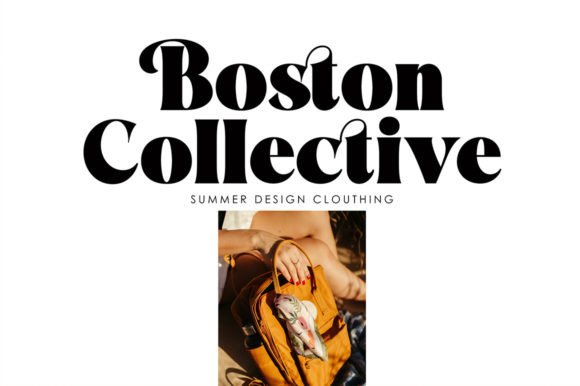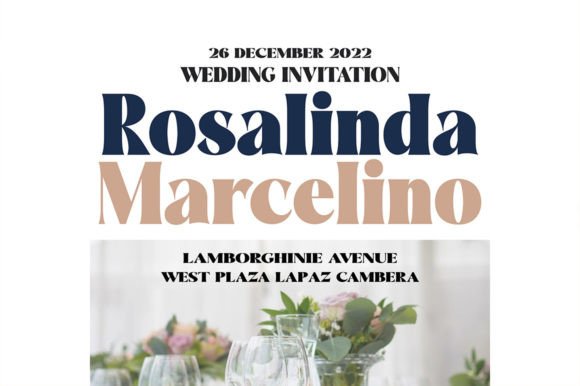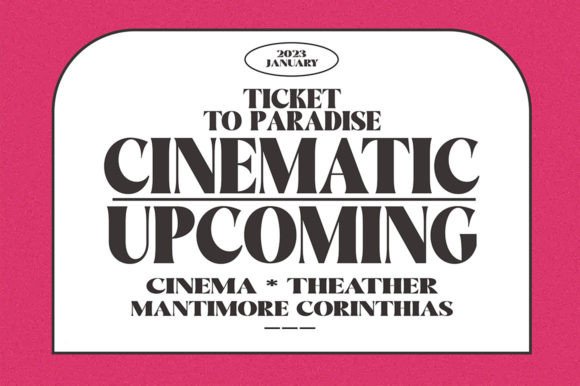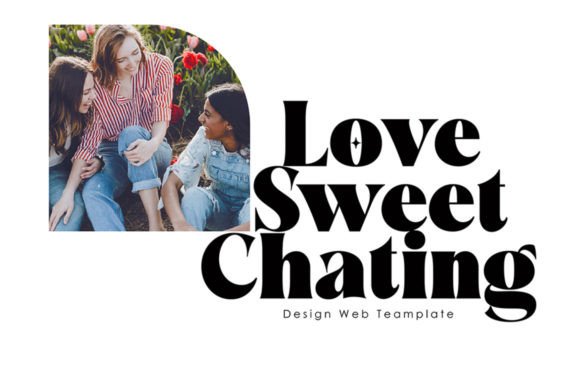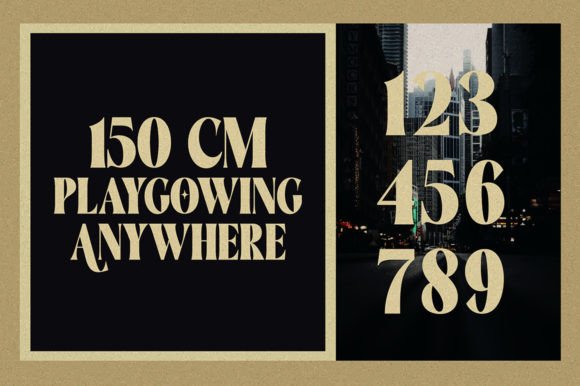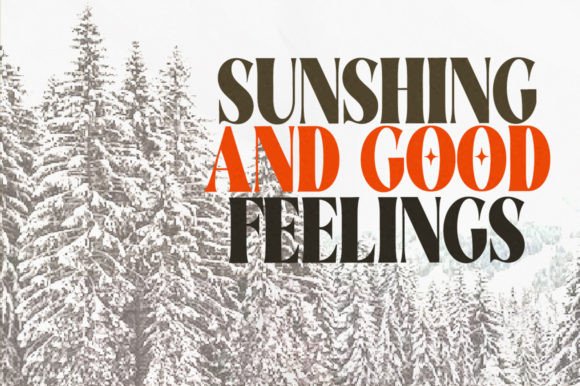
Introduction to Morgini Font
Have you ever found yourself in the middle of a creative project, staring at a blank canvas, and wondering what’s missing? That’s where the perfect font can make all the difference. I still remember the excitement I felt when I discovered the Morgini Font – a game-changing design resource that added a touch of elegance to my work.
With its modern serif style, Morgini Font offers an incredible range of alternative characters, swashes, and unique ligatures. This means you can experiment with different looks and feels, creating a high-quality visual identity for your brand or project. Whether you’re working on a logo, magazine spread, or wedding invitation, Morgini Font is a versatile design tool that will elevate your work to the next level.
Key Features of Morgini Font
- Unique, elegant design ideal for creative projects and artistic expressions.
- High-quality font with transparent background, allowing for seamless integration into various design elements.
- Features a large character set, including international characters and symbols, making it suitable for multilingual projects.
- Designed with high resolution (300 DPI) for crisp and clear display on various devices and mediums.
- Perfect for use in branding, typography, and visual identity projects, adding a touch of sophistication and elegance.
Honest Review: Morgini Font
Here are some of the things that work well for me: ✨
- High-quality design: The Morgini Font boasts a beautiful, elegant design that’s perfect for a wide range of creative projects.
- Transparent background: This feature makes it easy to use the font on any background, without worrying about the text getting lost.
- Easy to use: The font is extremely easy to use, even for those who aren’t experienced in design.
However, I did encounter a few limitations: ⚠️
- Limited character set: While the font is perfect for body text, it may not be suitable for complex typography or large blocks of text.
- Not suitable for bold or italic text: While the font looks great in its standard form, it may not be the best choice for bold or italic text, as it can look a bit too casual.
Overall, I’m really impressed with the Morgini Font. It’s a fantastic design resource that’s perfect for anyone looking to add a touch of elegance to their creative project. With its high-quality design and transparent background, it’s a must-have for any designer’s toolkit.
Morgini Font
The Morgini Font is a versatile and stylish design resource that can elevate your creative project to the next level. With its high-quality design and transparent background, it’s perfect for designers and non-designers alike.
Tips for Getting the Most Out of Morgini Font
To get the most out of the Morgini Font, try the following tips:
- Combine the Morgini Font with other design elements to create a cohesive design.
- Use the transparent background to create a seamless design.
The Morgini Font is perfect for various use cases, including:
- Creating eye-catching graphics and designs for social media.
- Designing business cards and marketing materials.
- Creating presentations and documents for work or school.